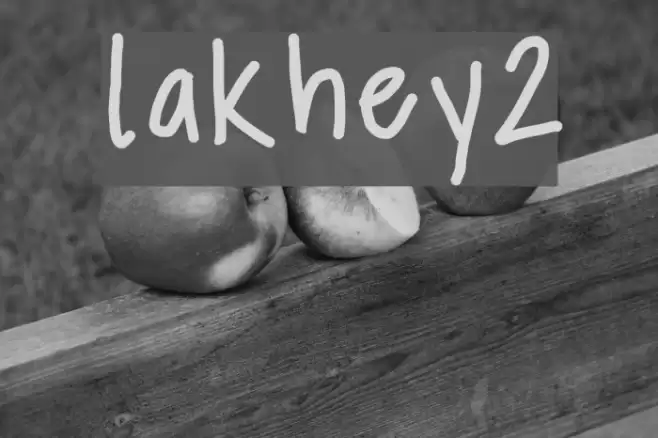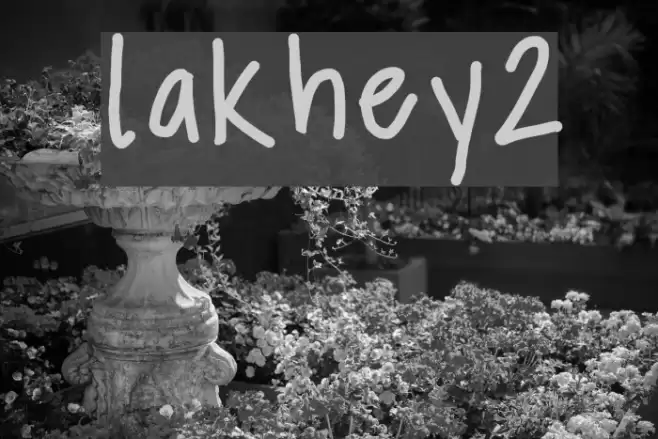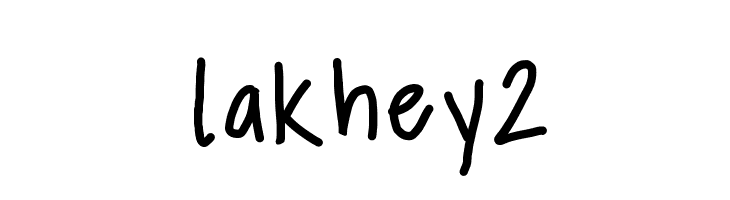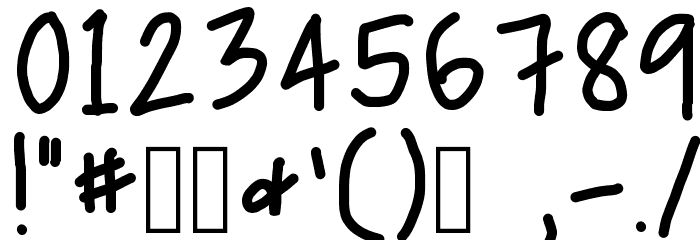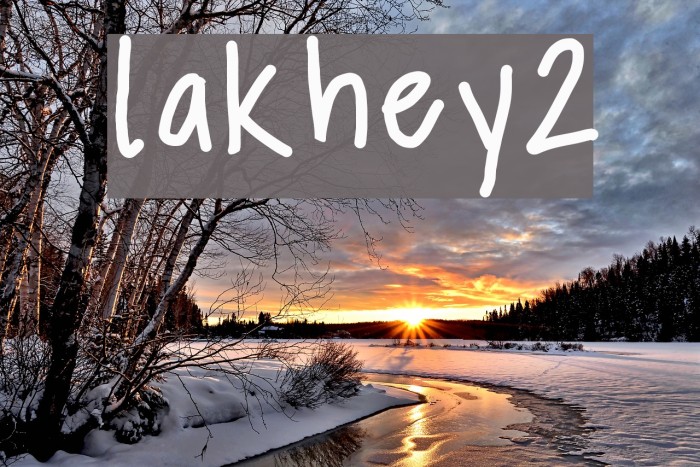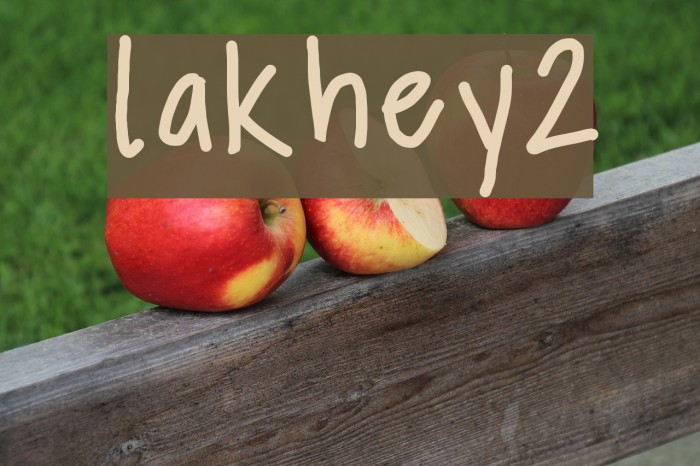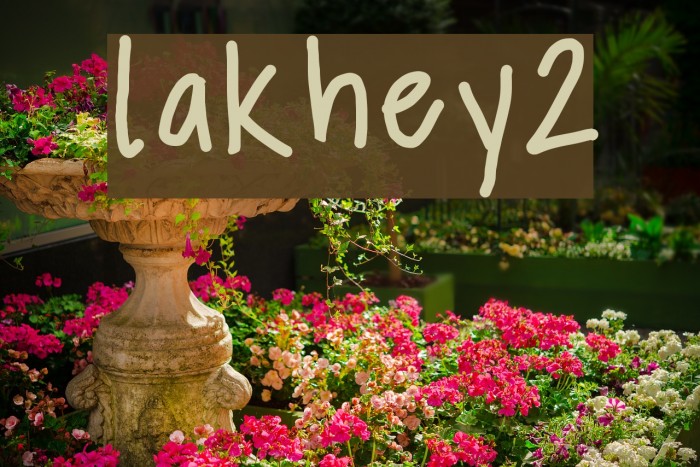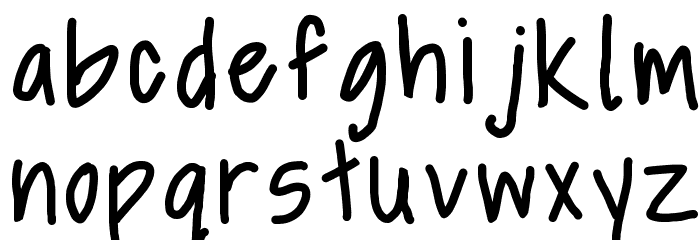
lakhey2 Font
lakhey2 Description
This font exhibits a playful and casual handwritten style, characterized by its irregular and slightly uneven strokes that mimic natural handwriting. The letters have a relaxed and informal appearance, with varying heights and widths that add to its charm. The uppercase and lowercase letters maintain a consistent flow, while the numbers and special characters integrate seamlessly into the overall design. The font's organic feel makes it suitable for projects that require a personal touch or a friendly, approachable vibe.
A playful, casual handwritten font with an informal style from Uncategorized fonts.
- Proposed Projects: Ideal for greeting cards, children's books, casual branding, and social media graphics.
- Overall Style: Casual, Playful
- Use Case: Headlines, Informal text, Creative projects